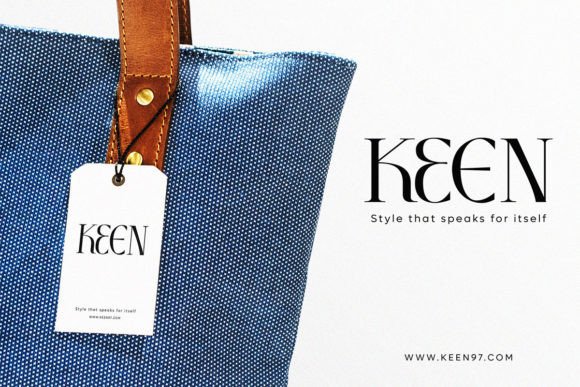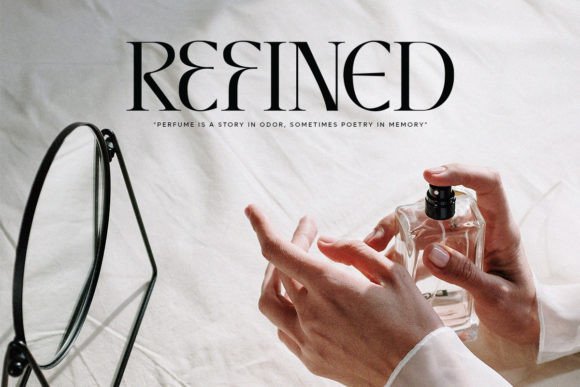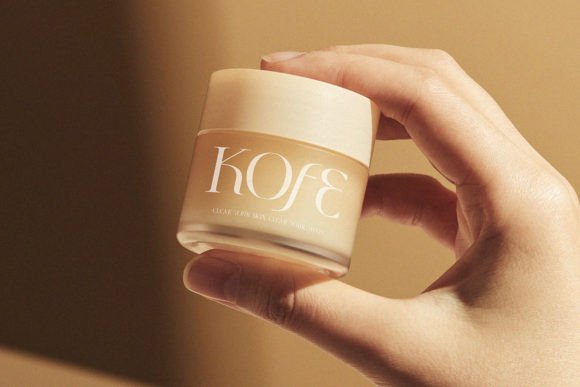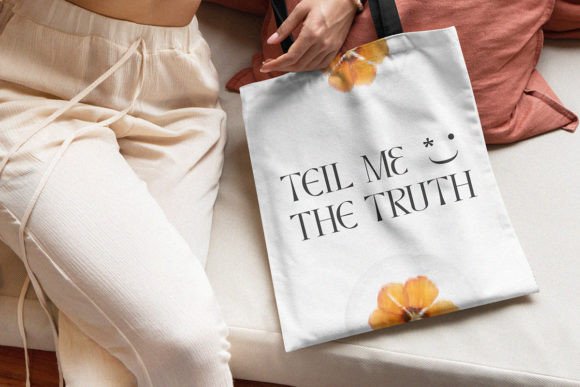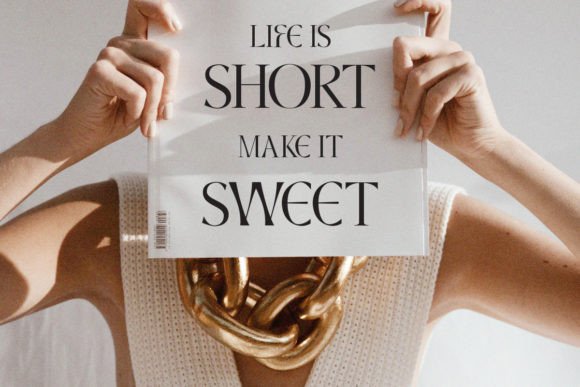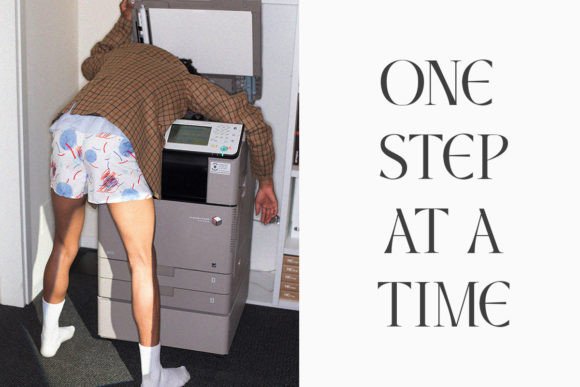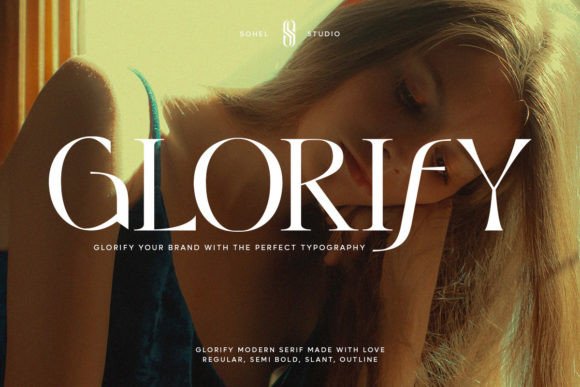
Introducing Glorify Font: Elevate Your Designs with Elegance and Sophistication
In the world of typography, a well-crafted font can make all the difference in elevating a design from ordinary to extraordinary. For designers and crafters seeking to add a touch of luxury and refinement to their projects, look no further than Glorify Font. This sophisticated and refined serif font exudes elegance and class, making it the perfect choice for high-end branding, invitations, and editorial design.
The Timeless Appeal of Glorify Font
One of the standout features of Glorify Font is its high contrast between thick and thin strokes. This distinctive characteristic gives the font a timeless quality that transcends fleeting design trends. Whether you’re working on a luxury brand identity, a wedding invitation, or a high-end editorial project, Glorify Font adds a level of sophistication and refinement that’s sure to impress.
Perfect for Luxury Branding and Editorial Design
Glorify Font is specifically designed to meet the needs of designers working on luxury branding and editorial projects. Its elegant and refined aesthetic makes it an ideal choice for:
- Luxury brand identities: Add a touch of sophistication to your brand’s visual identity with Glorify Font.
- Invitations: Make your wedding invitations, event invitations, or business invitations stand out with the font’s elegant and refined aesthetic.
- Editorial design: Use Glorify Font to add a level of sophistication to your editorial projects, such as magazines, newspapers, and books.
PUA Encoding for Effortless Access to Glyphs and Swashes
One of the key benefits of Glorify Font is its PUA (Private Use Area) encoding. This means that designers can access all glyphs and swashes effortlessly, making it easy to customize and refine their designs. With Glorify Font, you can:
- Access a wide range of glyphs and swashes to add unique touches to your designs.
- Easily customize your text to fit your brand’s style and aesthetic.
- Save time and effort with intuitive font access and management.
Why Choose Glorify Font?
With so many fonts available to designers, why choose Glorify Font? Here are just a few reasons why Glorify Font stands out:
- Elegance and sophistication: Glorify Font exudes refinement and luxury, making it perfect for high-end designs.
- Timeless appeal: The font’s high contrast between thick and thin strokes gives it a timeless quality that won’t go out of style.
- PUA encoding: Effortlessly access all glyphs and swashes to customize and refine your designs.
- Versatility: Use Glorify Font for a wide range of design projects, from luxury branding to editorial design.
In conclusion, Glorify Font is a sophisticated and refined serif font that offers designers and crafters a unique opportunity to elevate their designs with elegance and sophistication. With its timeless appeal, PUA encoding, and versatility, Glorify Font is the perfect choice for luxury branding, invitations, and editorial design. Whether you’re working on a high-end brand identity or a special invitation, Glorify Font is sure to add a touch of refinement and luxury to your project.
- Create stunning luxury brand identities that exude refinement and sophistication.
- Design beautiful invitations that make a lasting impression.
- Elevate your editorial designs with a touch of elegance and class.